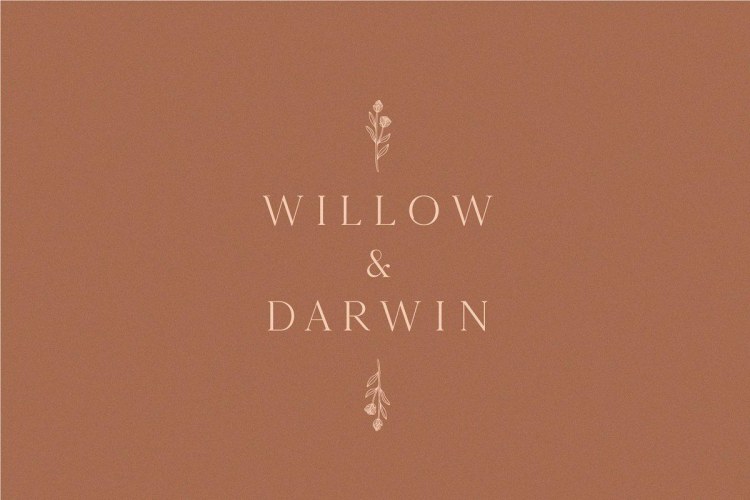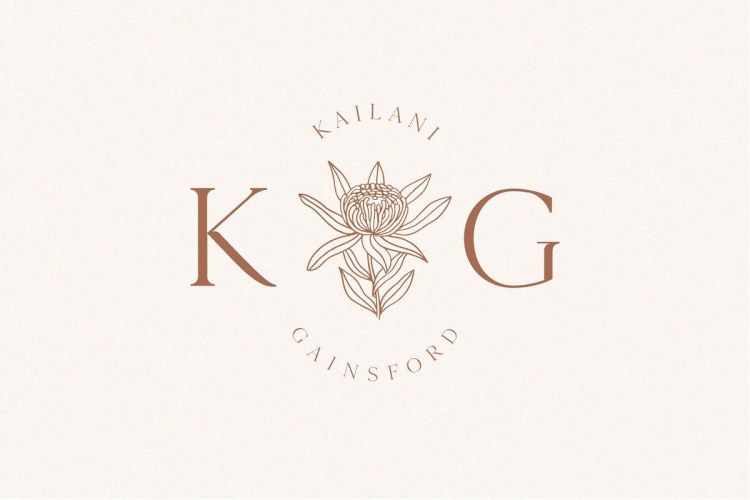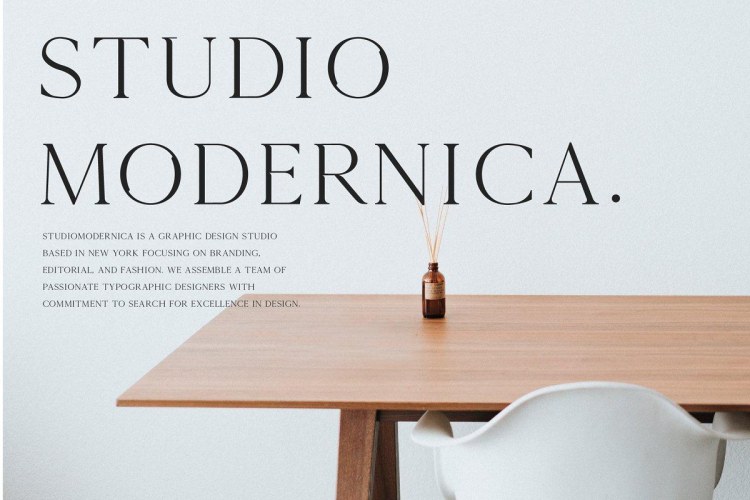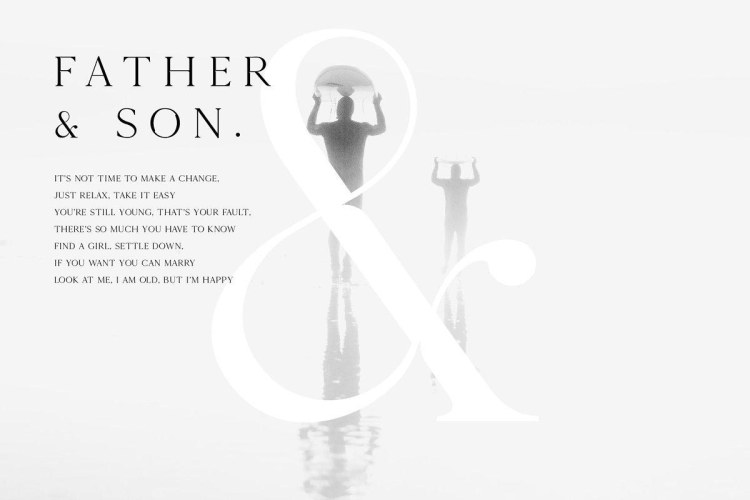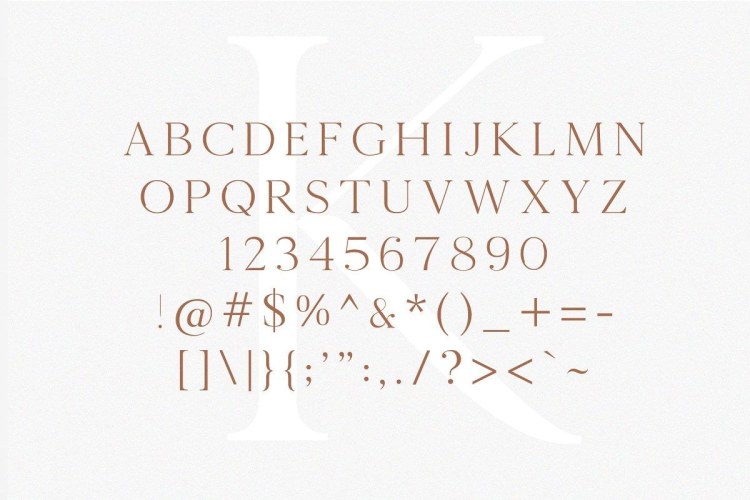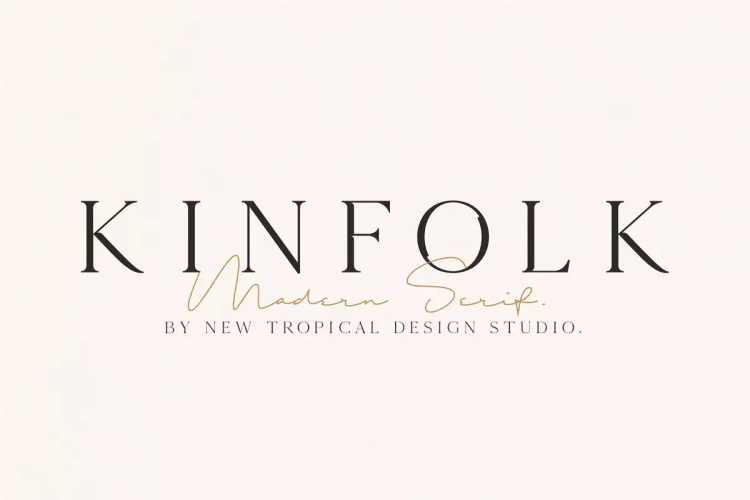
Kinfolk Font
Kinfolk is a timeless serif font with abrasive elegance. However, it also has a modern influence, with unique curves and cut-ins that make it stand out as one of the best caps fonts. Its combination of traditional and contemporary touches makes it a favourite choice for many applications.
This typeface can be used for everything from wordmark logos to mastheads in pull quotes to monograms. Its adaptability enables it to deliver a feminine and masculine vibe, making it a perfect variant for various design assignments.
If you are into creating classy-looking logos or editorial layouts and adding a refreshing touch to your branding materials, Kinfolk and Shopping Script have you covered when it comes to creativity and versatility? Use these fonts to make your designs stand out and convey your message to your audience in the most precise possible way.
Where Kinfolk Font works best
Kinfolk Font gives long-form text a classic, trustworthy rhythm — ideal for magazine spreads, annual reports and book interiors.
Pair Kinfolk Font with generous letter-spacing for wordmarks in fashion, hospitality, wine and jewellery branding.
Use Kinfolk Font for slide titles in Keynote, PowerPoint or Google Slides to add authority without looking dated.
What is Kinfolk Font good for?
Kinfolk Font is a Serif Fonts typeface tagged Branding, Classic, Editorial, Elegant. It works well for headlines, logos, posters, social media graphics and branding projects that need a distinctive serif fonts look.